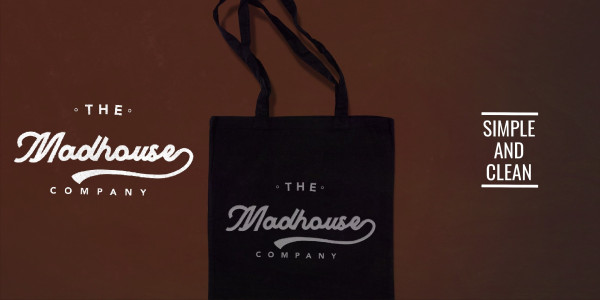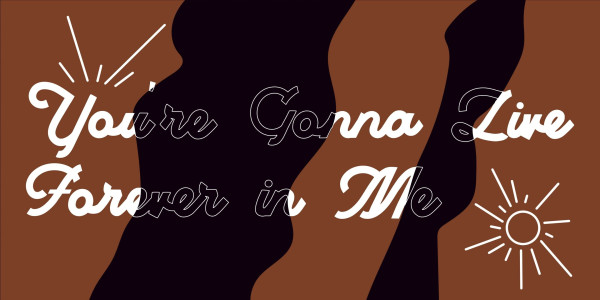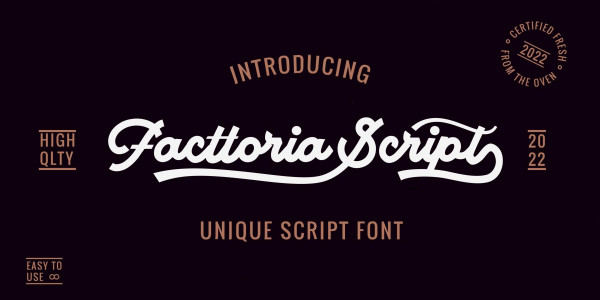
Facttoria Script Font
Facttoria Script Font is a calligraphic lettering with a thick character and a strong personality. It would be a perfect choice to design posters, affiches, logos, t-shirt and magazine prints, eye-pleasing typographic designs and more.
Use # after any word to make a tail.
Example: Signature#
Use _ anywhere in a word to make a swash.
Example: Love_letter
Use multiple underscores to make different swashes.
Example: Hand_____writer